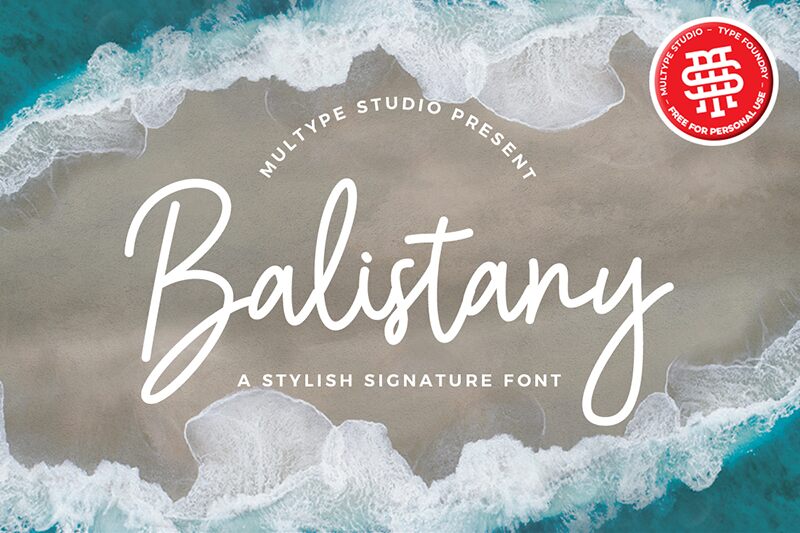
Balistany emerges from the creative minds at Multype Studio, offering a semi-light, handwritten font that brings a touch of personal flair to every project it graces. With its monoline and stylish signature appeal, this font is an embodiment of elegance and versatility. It’s ideally suited for photographers seeking to watermark their work with sophistication or social media mavens aiming to add a bespoke touch to their posts.
The graceful strokes of Balistany make it a go-to choice for advertisements, logos, and branding endeavors that require a unique handwritten essence. Invitations and stationery bloom with its intimate feel, while product designs and labels gain an artisanal charm. For those special moments like weddings or events that demand a personalized script, Balistany delivers beautifully. Its adaptability ensures that your packaging design or any project thirsting for the warmth of handwriting will resonate profoundly with your audience.